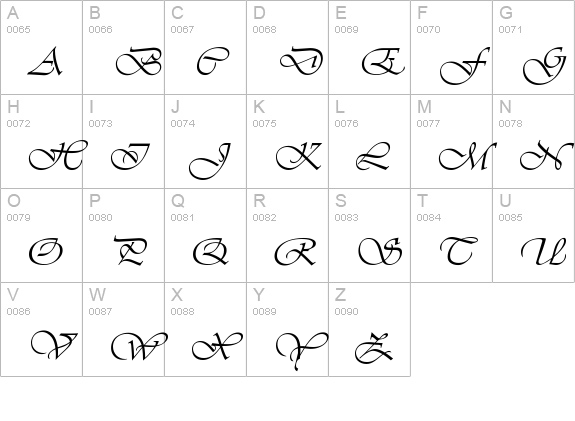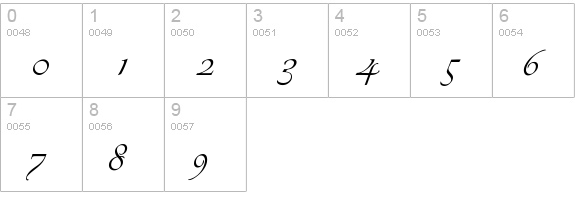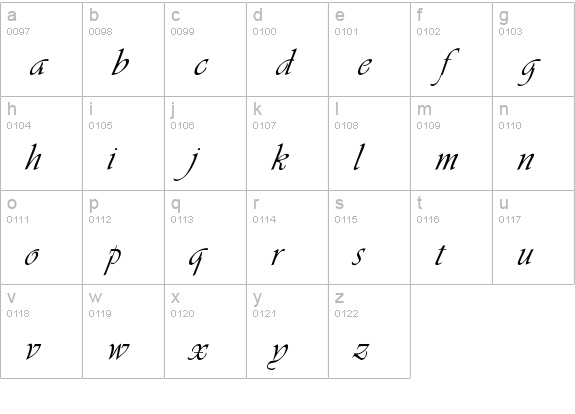
Vivante DTC ITALIC Font Details
Vivante DTC ITALIC is a distinctive, italic variant in the Vivante typeface family \xE2\x80\x94 well suited to design and typography projects.
Vivante DTC ITALIC font is a beautifully designed typeface that exudes elegance and sophistication. Its flowing, italicized letterforms are perfect for adding a touch of finesse to any design project. This font is a true standout with its graceful curves and stylish flair. What sets Vivante DTC ITALIC font apart is its availability as a free download at FontsMarket.com. This means that designers, creatives, and enthusiasts alike can access this stunning font without any cost. Its accessibility makes it a popular choice for those looking to elevate their designs without breaking the bank. With Vivante DTC ITALIC font, you can effortlessly create captivating headlines, eye-catching logos, or stunning brand identities. Its versatility allows it to seamlessly blend into a variety of design styles, making it a go-to choice for both personal and professional projects. Whether you're working on a website, a print layout, or a digital advertisement, the Vivante DTC ITALIC font will add a touch of sophistication and refinement. Its timeless appeal and effortless beauty will captivate viewers and leave a lasting impression. Download Vivante DTC ITALIC font today at FontsMarket.com and experience the freedom of creating exceptional designs with this remarkable typeface.